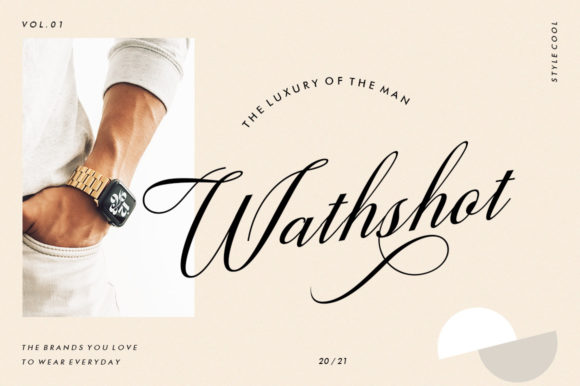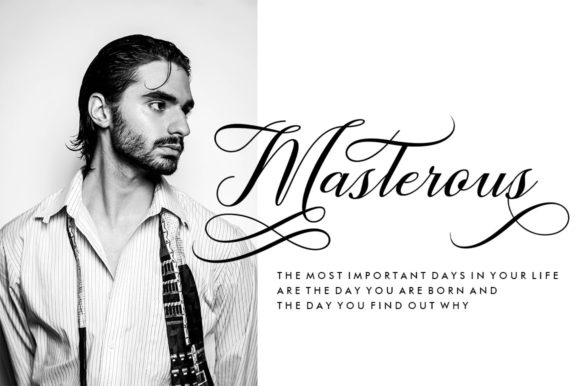
Vintage Fonta Font
db-ku.com - Script & Handwritten -- Vintage Fonta is a dazzling and elegant script font. This font is PUA encoded which means you can access all glyphs and swashes with ease!